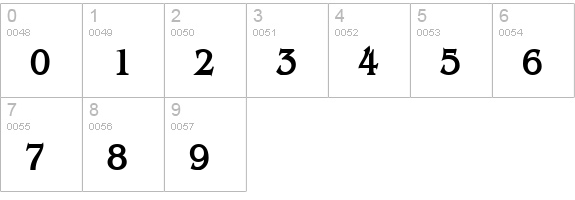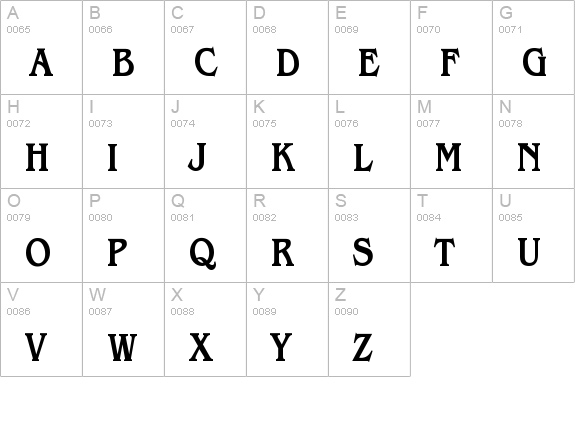
Bangle Condensed Bold Font Details
Bangle Condensed Bold is a strong, high-contrast, condensed-width variant in the Bangle typeface family \xE2\x80\x94 well suited to headlines, attention-grabbing titles, and strong calls-to-action.
Bangle Condensed Bold font exudes a sense of modernity and sophistication with its sleek lines and bold appearance. This striking typeface is perfect for making a statement in headlines, titles, and other design projects that require a strong visual impact. The condensed style of the font adds a touch of elegance and allows for efficient use of space in layout designs. Despite its premium quality and professional look, Bangle Condensed Bold font is available for free download at FontsMarket.com. This means that you can elevate your designs without breaking the bank, making it an ideal choice for designers, creatives, and anyone looking to add a touch of style to their projects without any cost. With its versatility and eye-catching appeal, Bangle Condensed Bold font is sure to make a lasting impression on any design it is used in.